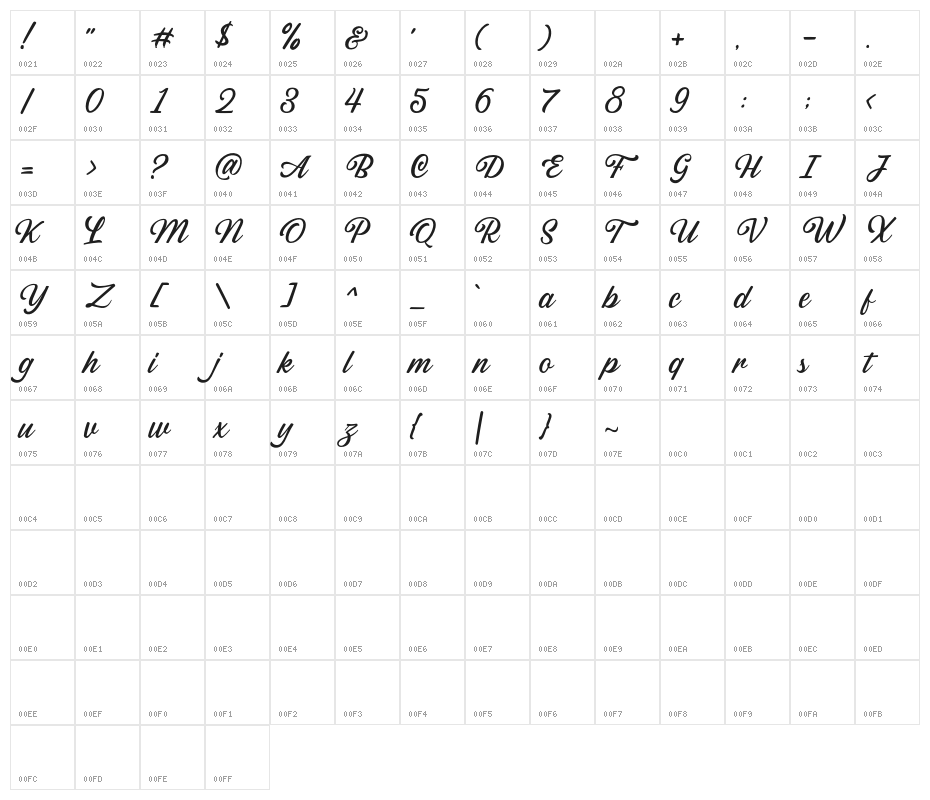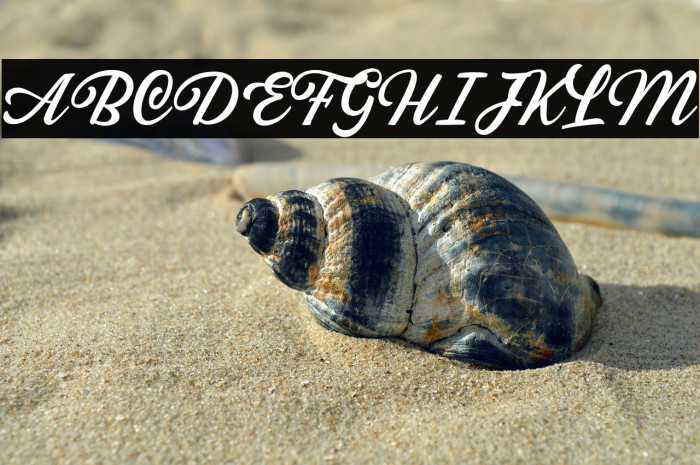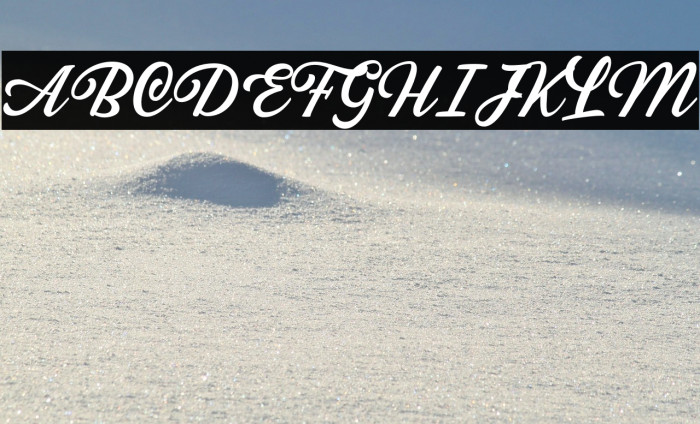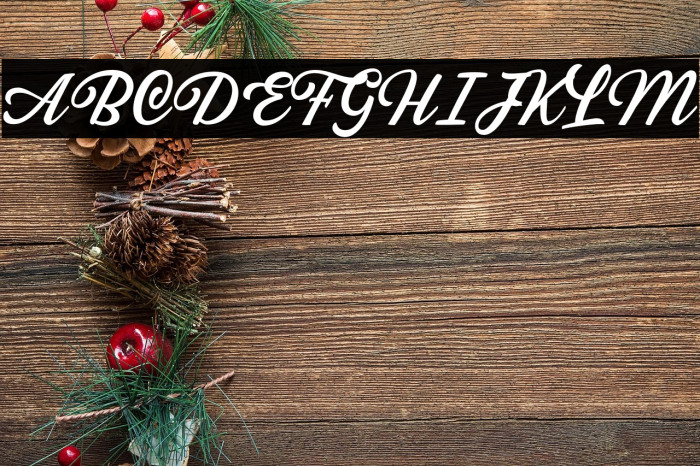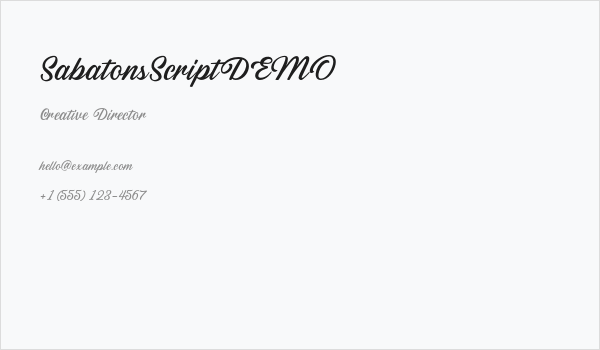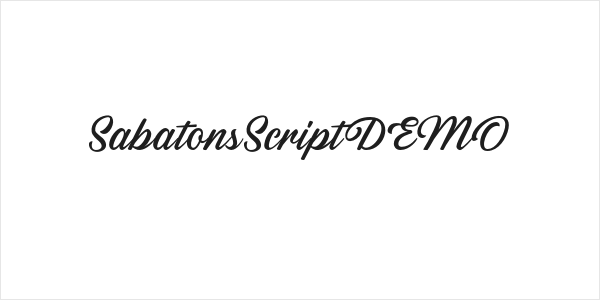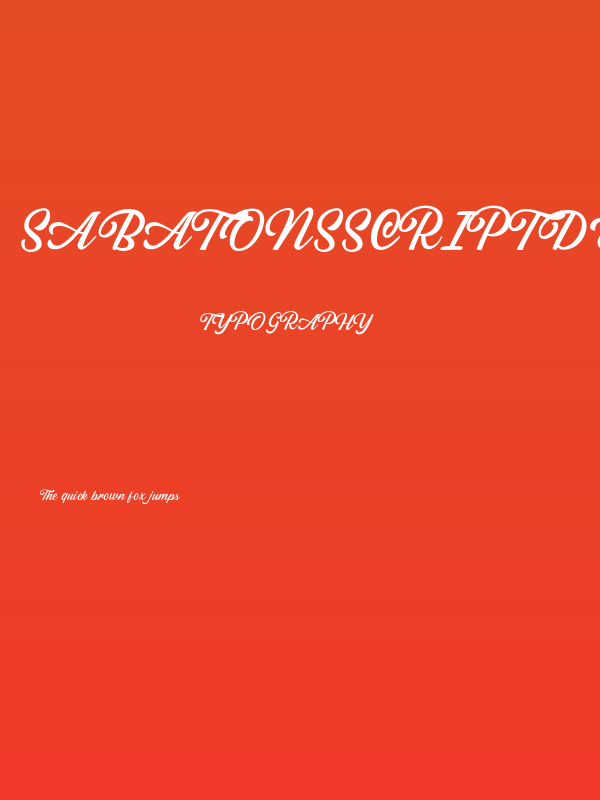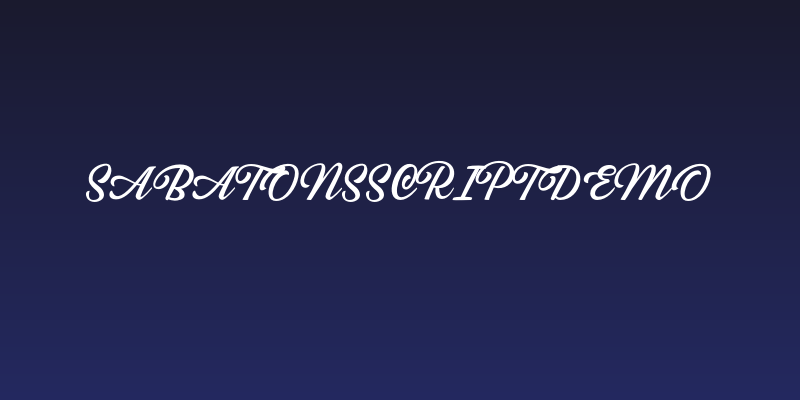
SabatonsScriptDEMO Font
SabatonsScriptDEMO Description
This elegant script font features a flowing, cursive style with smooth, connected strokes that mimic the fluidity of handwriting. The uppercase letters are gracefully curved, with a slight slant that adds a sense of motion and sophistication. The lowercase letters maintain a consistent flow, enhancing readability while preserving the artistic flair. The numerals are designed with the same attention to detail, ensuring they blend seamlessly with the alphabet. Special characters are thoughtfully crafted to match the overall aesthetic, making this font suitable for a variety of creative applications.